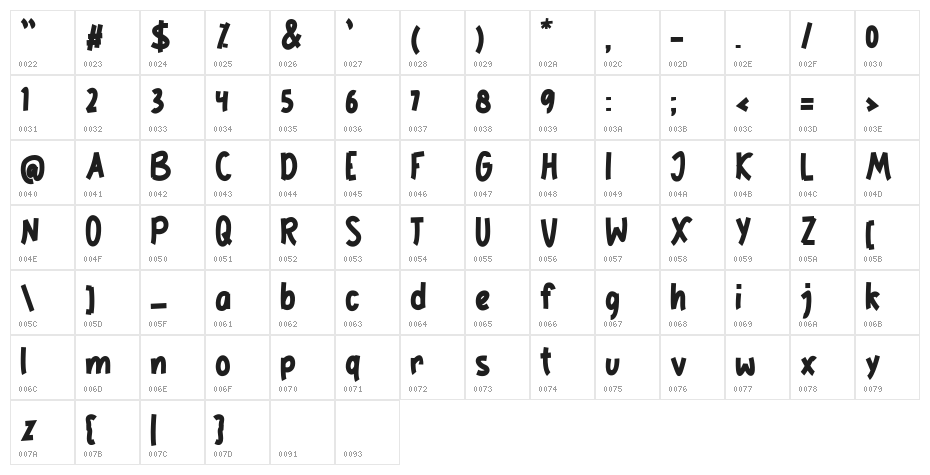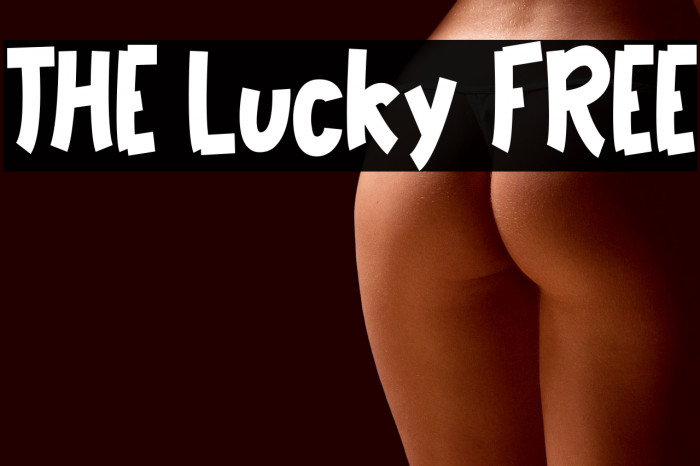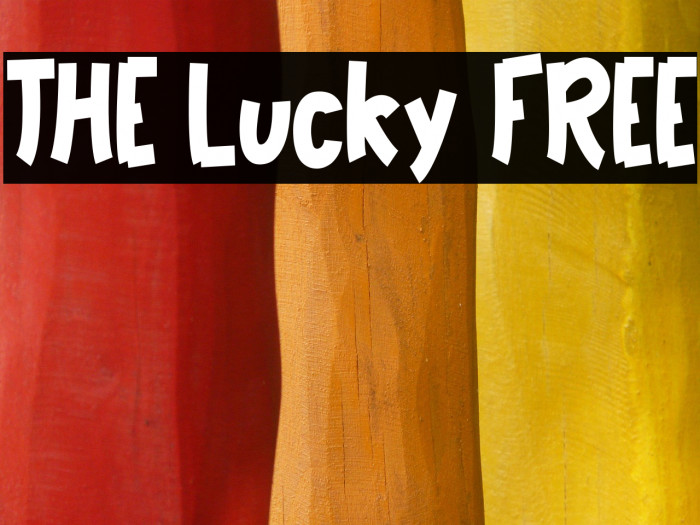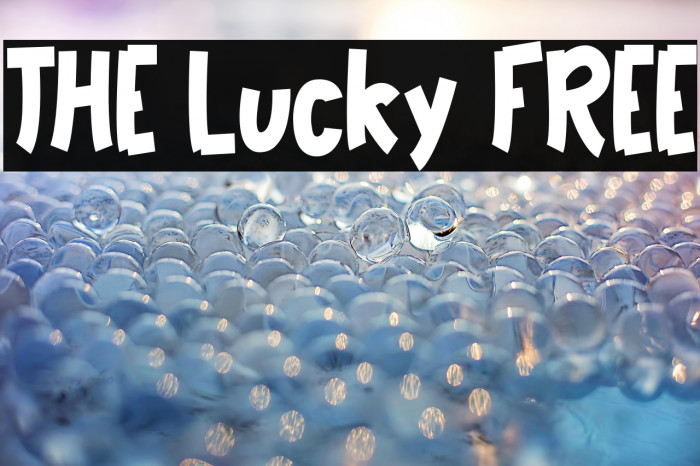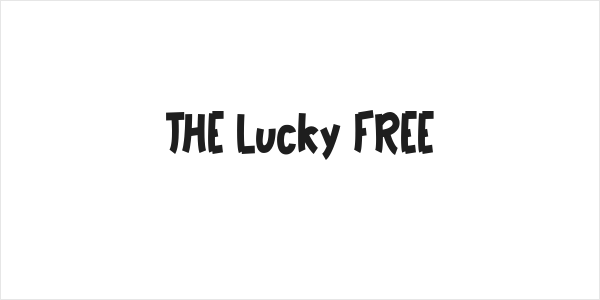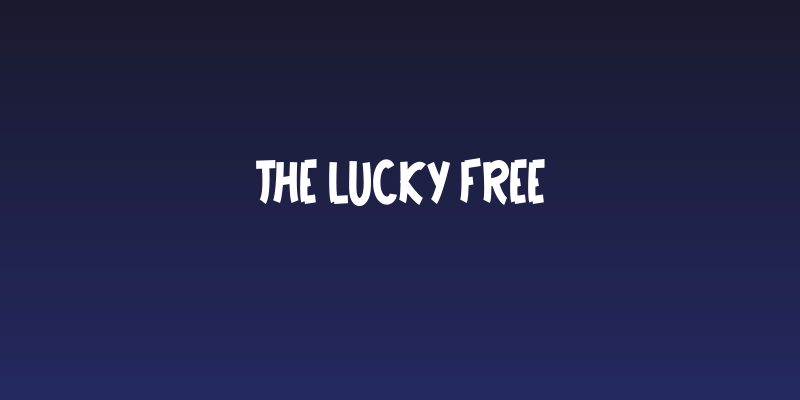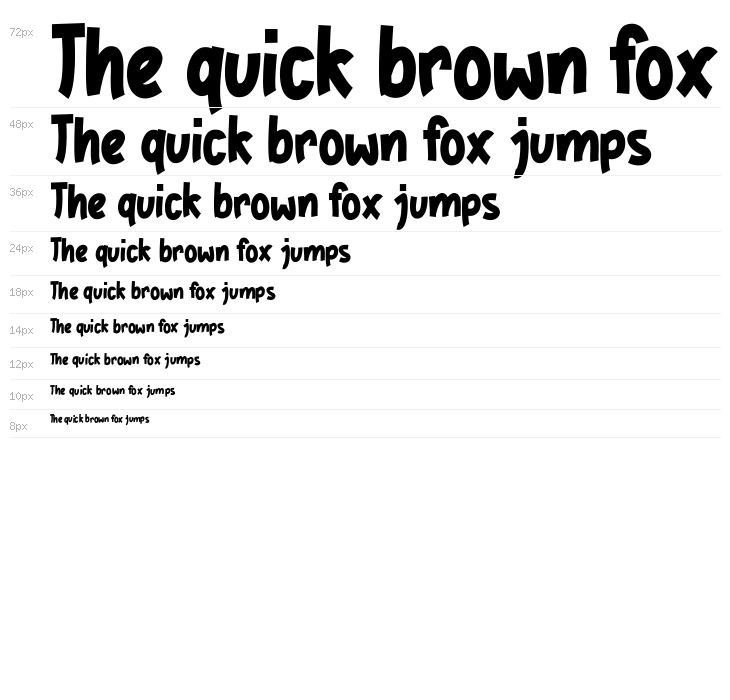
THE Lucky FREE Font
THE Lucky FREE Description
This font features a playful and bold style with a hand-drawn appearance. The letters are slightly irregular, giving it a whimsical and informal feel. The uppercase and lowercase characters maintain a consistent thickness, contributing to a cohesive look. The numbers and special characters follow the same playful design, making them suitable for creative projects. The overall appearance is lively and energetic, perfect for capturing attention.